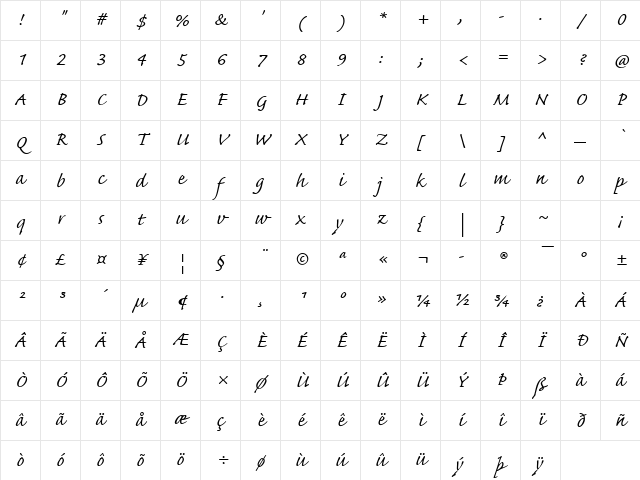
Caflisch Script Web Regular
Foundry: Adobe Systems, Incorporated
Caflisch Script Web Family
Design Context for Caflisch Script Web
Caflisch Script Web flows with the natural rhythm of handwritten lettering, making it ideal for designs that call for warmth and personal expression.
Font Pairing: Combine Caflisch Script Web with a simple geometric sans for maximum contrast - the tension between flowing curves and clean structure is a classic typographic pairing.
Pro Tip: Use Caflisch Script Web for short runs of text - names, titles, or taglines. Extended body copy in script faces tires the eye quickly.